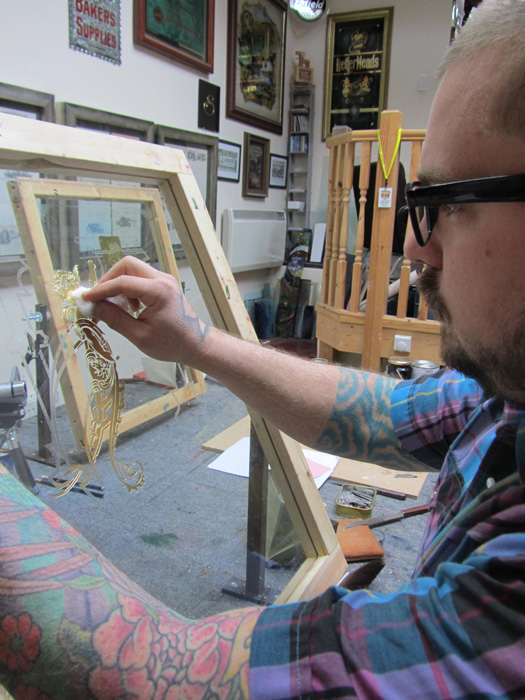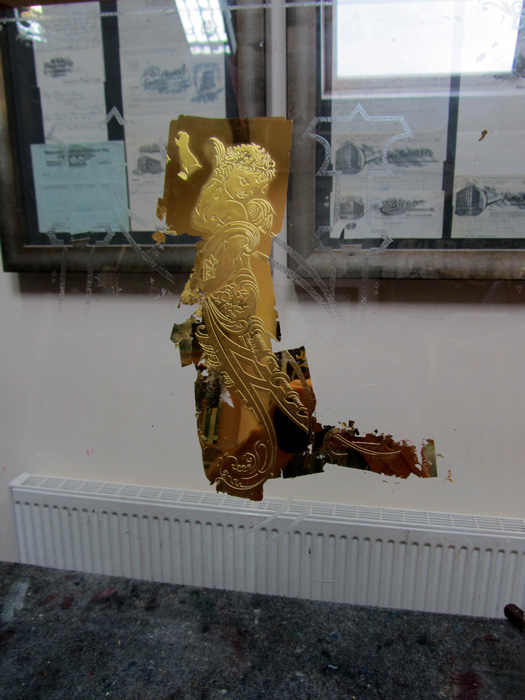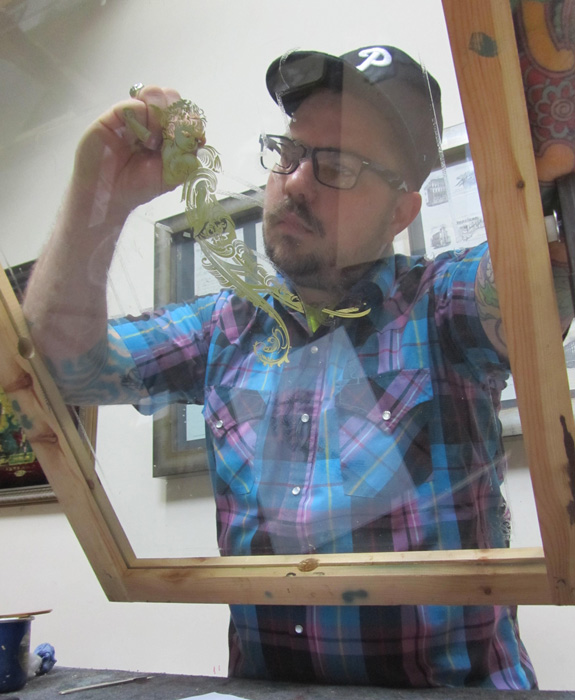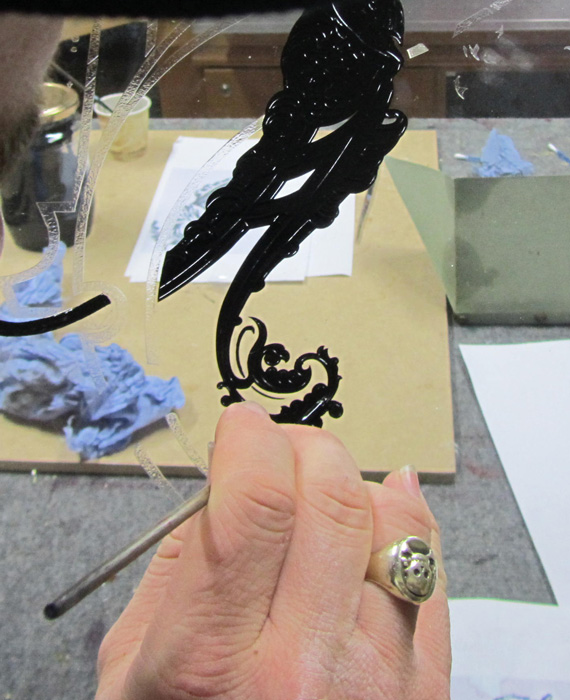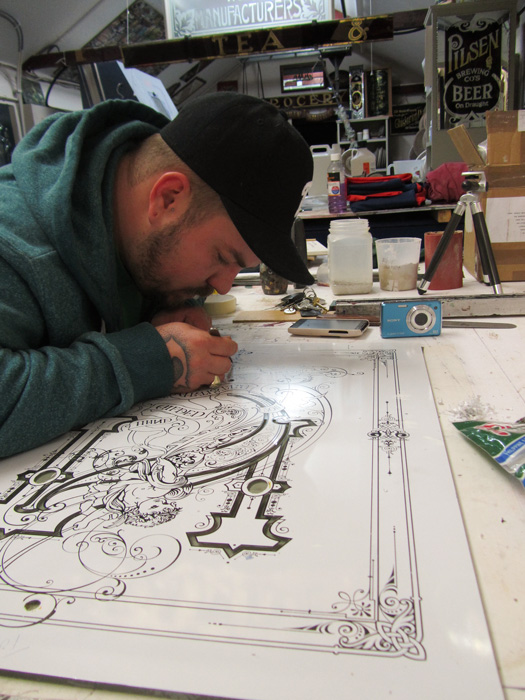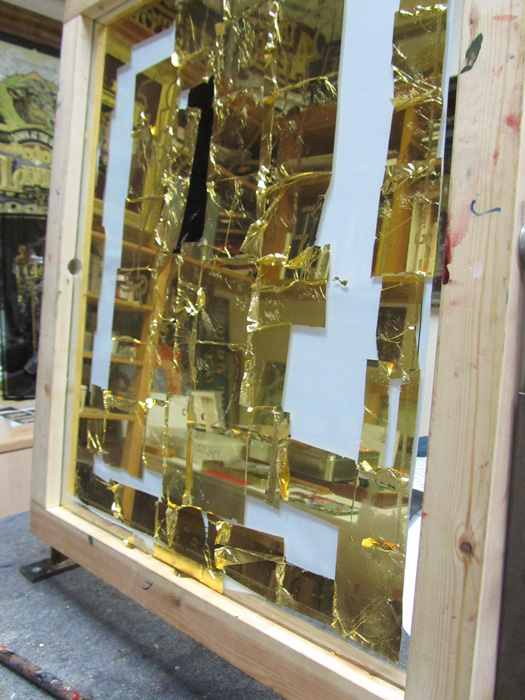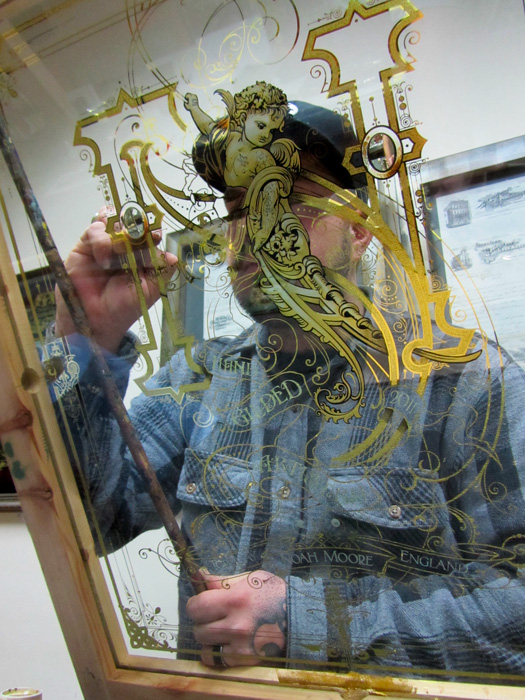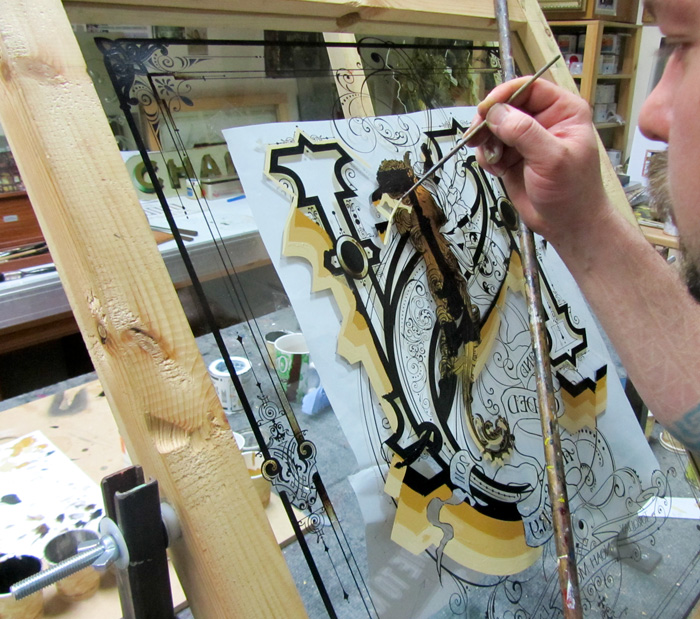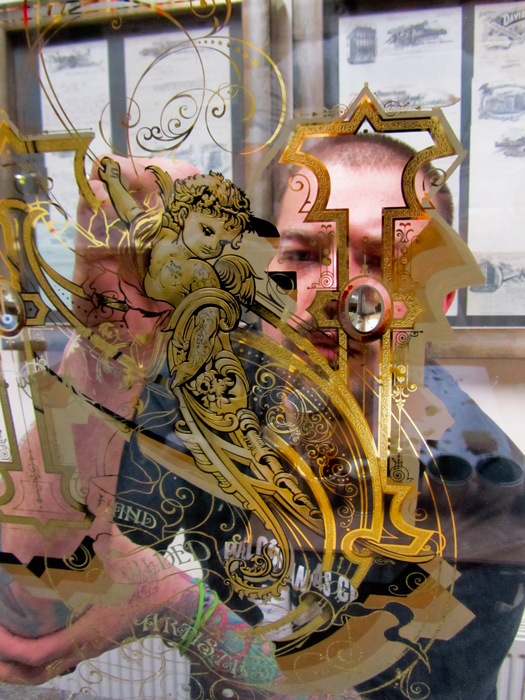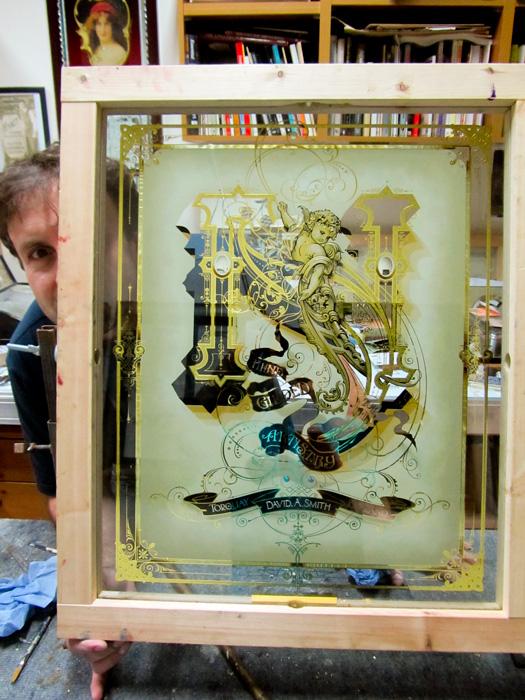
GoldLeaf workshop Feb 2011 Noah Moore
Hi . I recently finished teaching a Gold Leaf workshop to a very talented artist from Kansa City ,Missouri. Noah Moore travelled to the UK to learn our craft of glass gilding and acid embossing. Noah is a highly skilled illustration designer, incredible lettering artist ,spray work and tattoo artist . Noah Skyped me about three months ago to book up a weeks course in gilding and embossing. I designed a capital letter N specially for Noah to work on with various techniques of acid embossing ,matt finishes, Brilliant Cutting ,Gilding and painting along with blended letter shades and also mother of pearl inlay. It was a great week working along side such a talented young man. I Certainly made a friend for life sharing our crafts. Noah is now in London for 2 days visiting historic pubs and painting walls with friends.
He fly's back to the US on Tuesday with his work of art...
Whats the finished piece like Dave?
really though, thank you very much, dave. it was an honor to work along side of you. i really appreciate you and your families generous nature. you really gave me tons of applicable knowledge and im totally pumped to use it. thank you very much for the compliments. im glad we can be of inspiration for one another in the field of arts and other avenues as well. to anybody considering a workshop with dave, i strongly suggest you make it happen. its worth every penny (or pence) put forth to learn what he has to offer....well, most of it anyway. he is a true master at his craft. i also feel as if i made a great friend out of the deal and know that there is great potential for future artistic development between the two of us. keep your eyes peeled. it might take a minute to get settled in and get some things started but it will inevitably happen and you will all witness it right here. thanks again, dave
I can't wait to see what you do with the techniques especially with your design magic that you have. Seeing you sketch first hand I would say your style is very simalar to David Butlers. Here are some more photos of the workshop and will post some more once both panels have the background finished and framed.
A few more images as we progressed.
It is always great to work one-on-one and learn as much as you teach. Classic style.
And again, more beautiful works of art. Great stuff there guys!
Perhaps you should just design one of those initial panels for every letter of the alphabet, so you'll be ready when the band wagon shows up.
Or you could do those awesome intertwined initials...say...perhaps LWW.... :D
I have a feeling more and more folks are gonna want to come and do this with you. I'd be one of 'em.
Thanks you guy's. That is actually a very good idea Larry The alphabet would be the way to go....
billy, i was crouched on top of the table. at times its almost impossible to see what youre doing with the reflections going on. i had to get above it to see exactly what i needed to accomplish.
the alphabet is actually a great idea. you could do each one a square foot. if you dont do it, i just might. that would actually be a good meet. everyone could pick a letter till each one was done. just a thought.